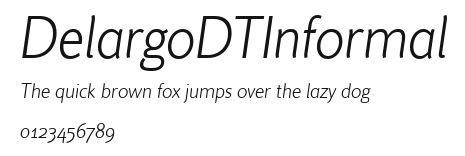
• Font Name: DelargoDTInformal
• Full Font Name: Delargo DT Informal Light Italic
• Manufacturer: DTP Types Limited
About DelargoDTInformal.ttf
DelargoDTInformal.ttf is a modern, elegant sans-serif font designed for ultimate readability and visual harmony. Perfect for branding, headlines, web design, and print materials.